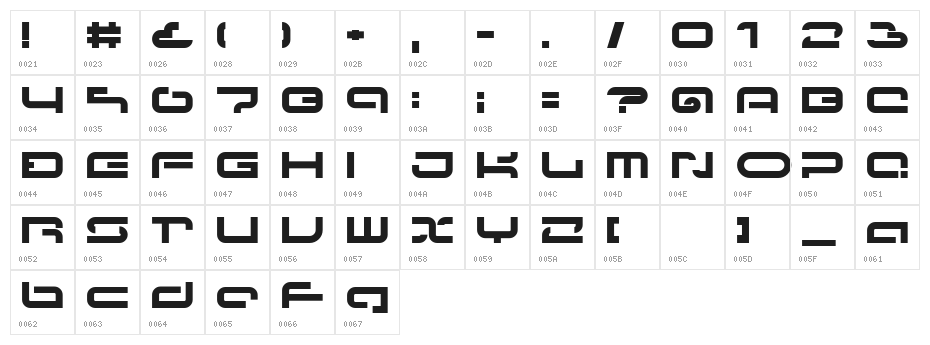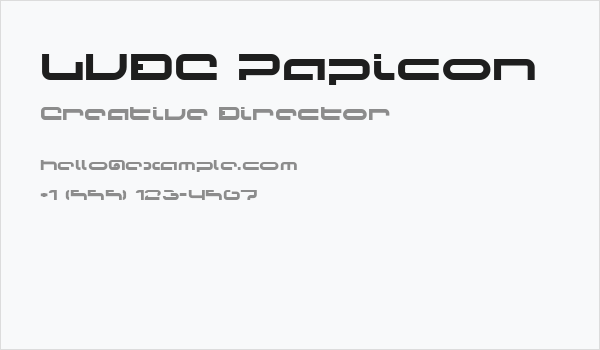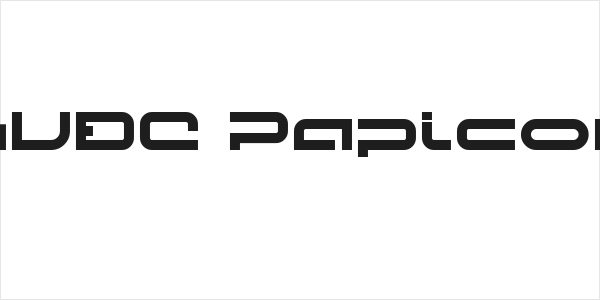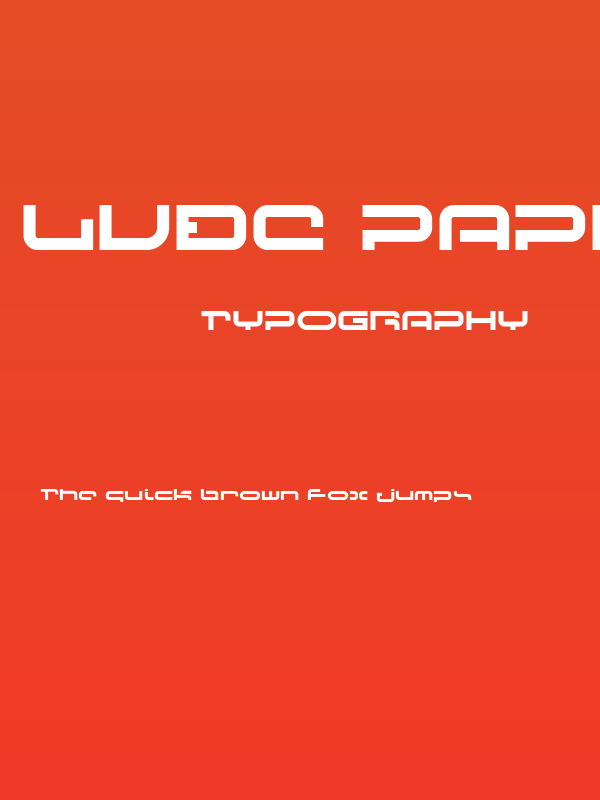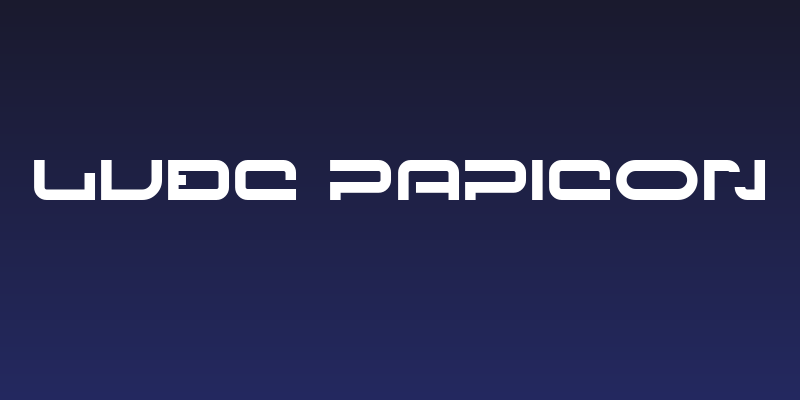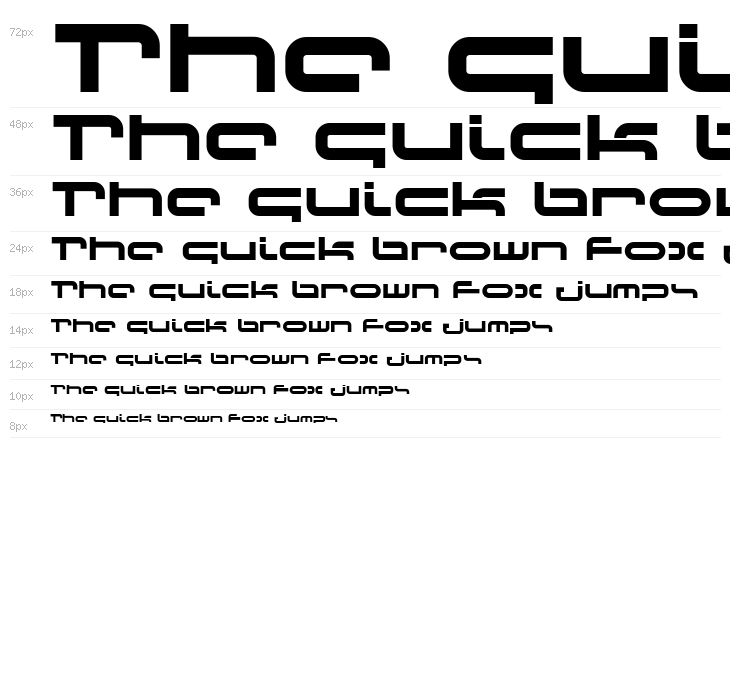
LVDC Papicon Font
LVDC Papicon Description
This font exhibits a futuristic and geometric design, characterized by its bold and angular letterforms. The characters are constructed with a combination of straight lines and curves, creating a unique and modern aesthetic. The uppercase and lowercase letters maintain a consistent style, with a strong emphasis on horizontal and vertical strokes. The numbers and special characters follow the same design principles, ensuring a cohesive look across all glyphs. The font's distinct appearance makes it suitable for projects that require a contemporary and tech-inspired feel.